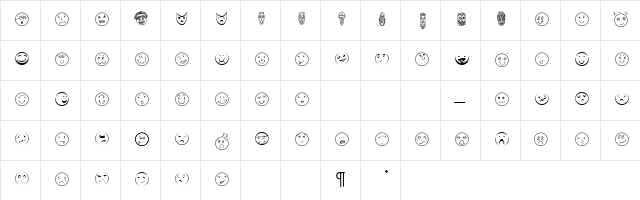
AbcFaces Regular Font Preview
AbcFaces Regular
AbcFaces Regular Font Details
Design Context for AbcFaces Typeface
AbcFaces is a composed and adaptable typeface that performs quietly and consistently across a wide range of design contexts.